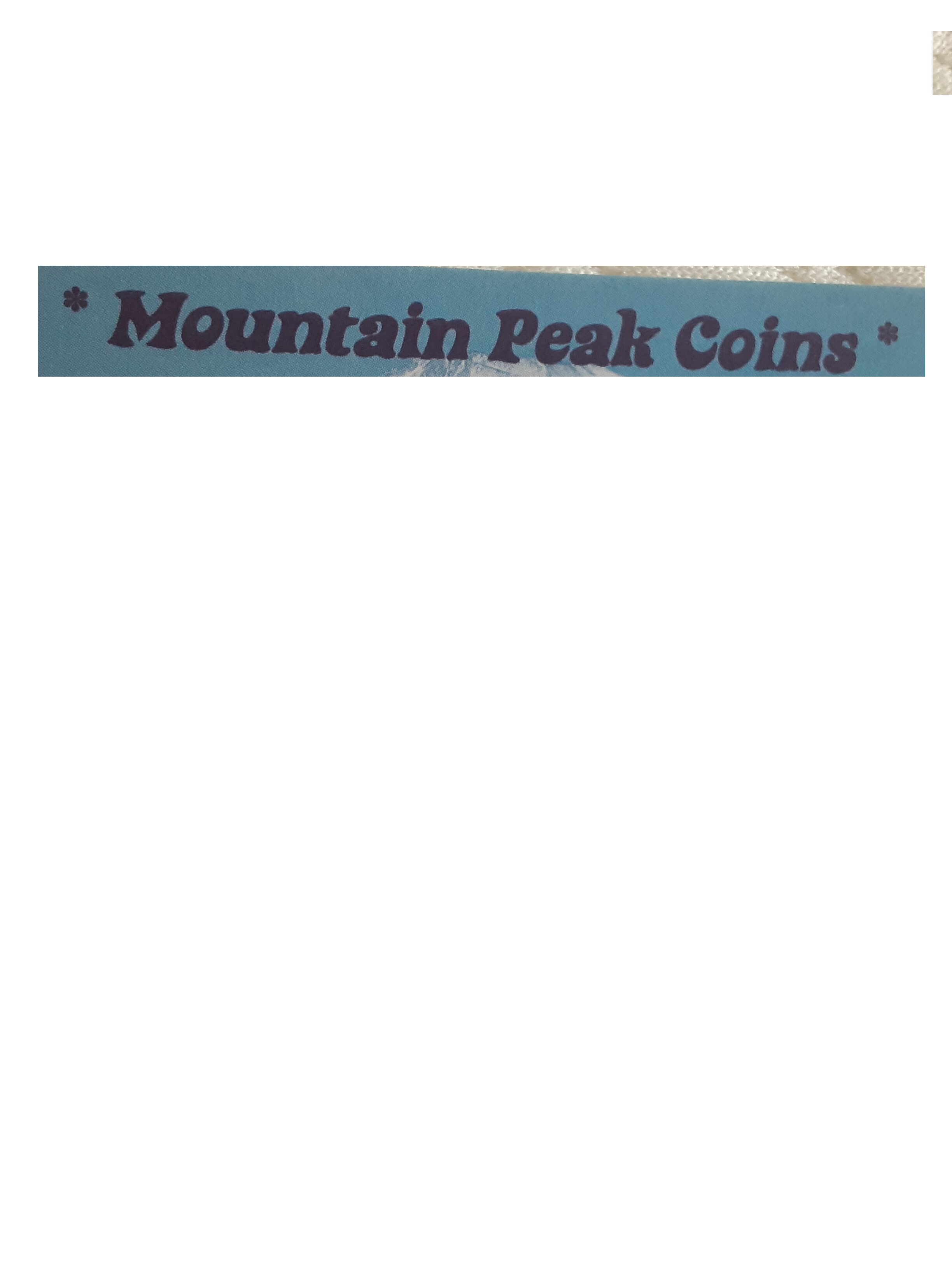
Does anyone recognize this font? If not, do you know how I can find out what font this is?
It’s a 60’s Hippie style font… The closest thing here on Zazzle is Spicy Rice, but it’s certainly not the exact same font. Searching Hippie font will turn up a lot of examples, but I didn’t spot any exact matches - but that may be because it was hand lettered (with a closer look, I doubt this… the same letters too consistent) - how old is the source? The closest that I found was “keep on truckin” - still not an exact match, but there are probably 100’s… so I doubt I looked at all of them.
You could try a font matcher - you upload an image and it will find the closest fonts https://www.fontspring.com/matcherator
Hi. Cooper Std Black and Shrikhand Regular are both very close.
Hi again. I used WhatTheFont to find the font. It is Steiner Special.